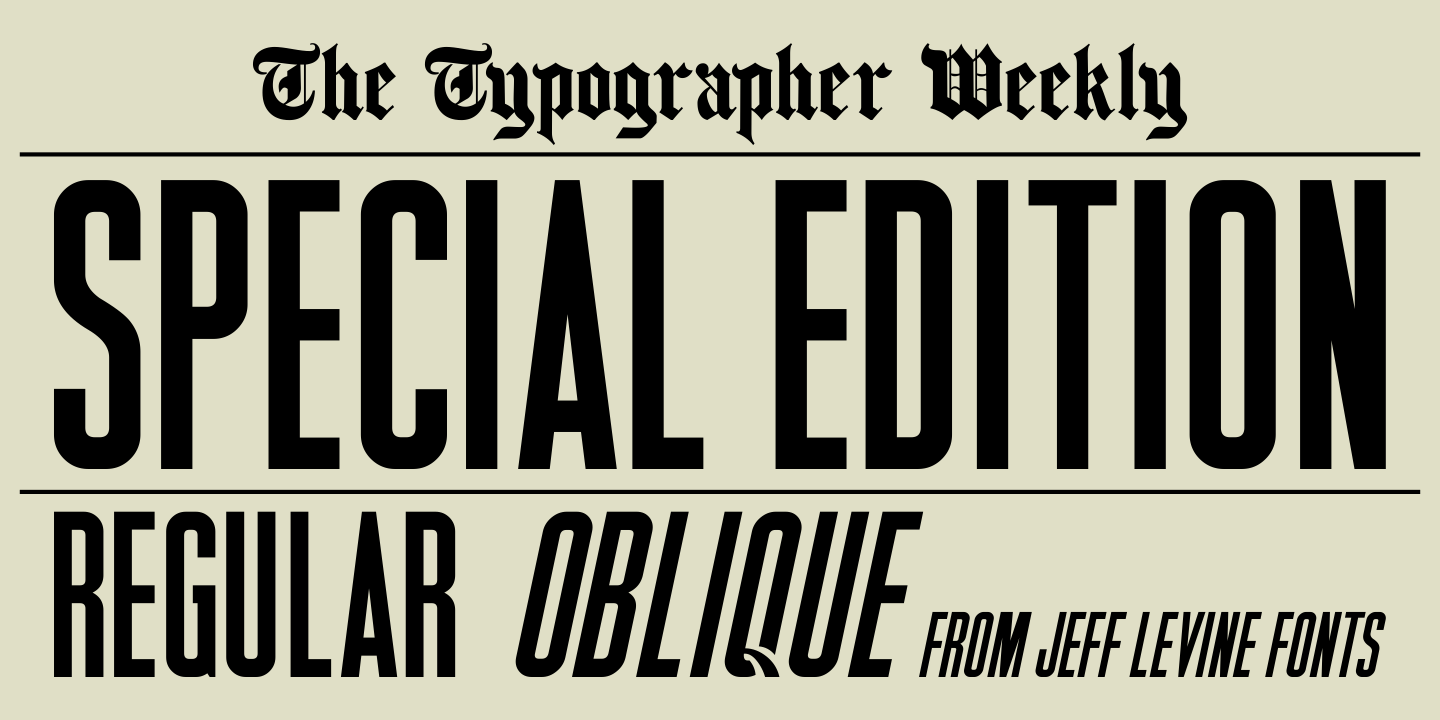
For a bold and unique display font that combines vintage charm with modern appeal, Special Edition JNL Font Free Download is an excellent choice. This font features strong, geometric letterforms with a retro-inspired design, making it ideal for projects that require a striking, attention-grabbing look.
Special Edition JNL brings a sense of nostalgia with its clean lines and sharp edges, making it perfect for use in branding, headlines, posters, logos, and any project that needs a bit of visual flair. Its retro style fits beautifully in vintage-themed designs or projects that aim to evoke a sense of timelessness while maintaining a contemporary touch.
Whether you're designing a promotional flyer, product packaging, or a creative logo, Special Edition JNL adds personality and style to your typography. It’s perfect for both print and digital media, offering legibility with bold visual impact.